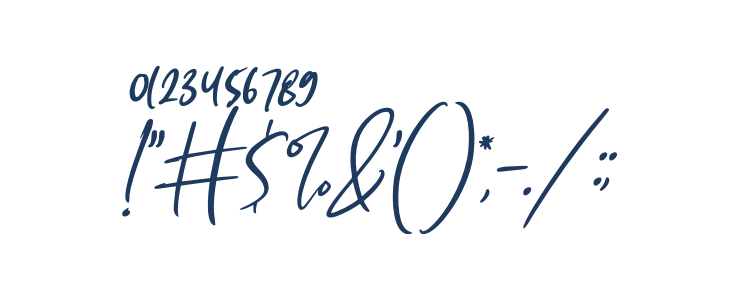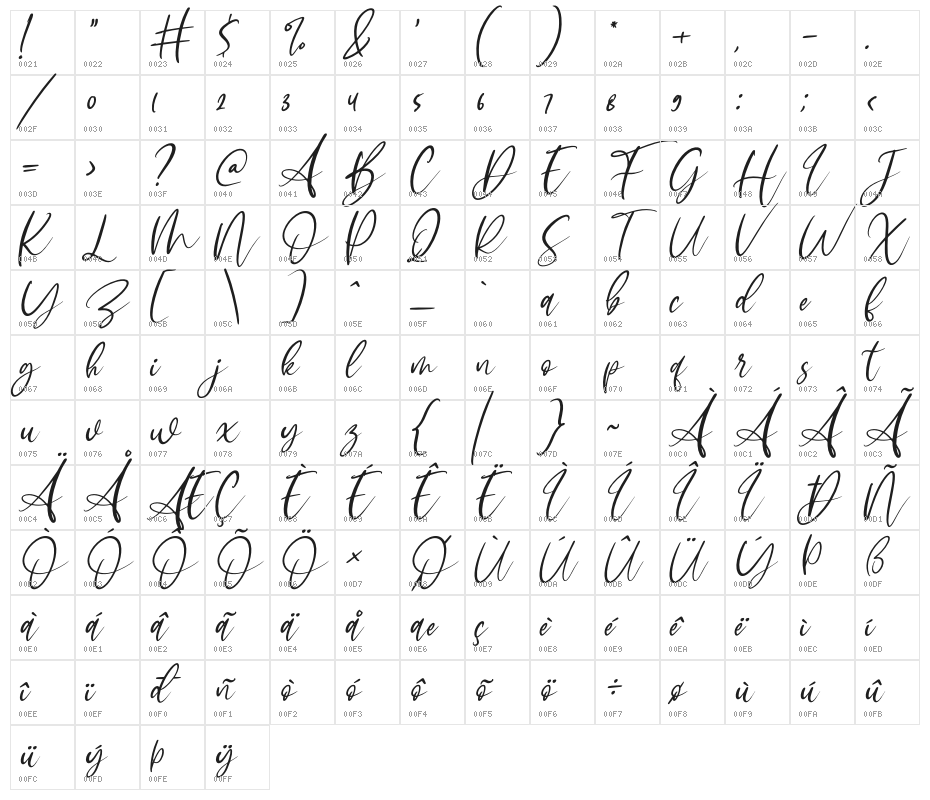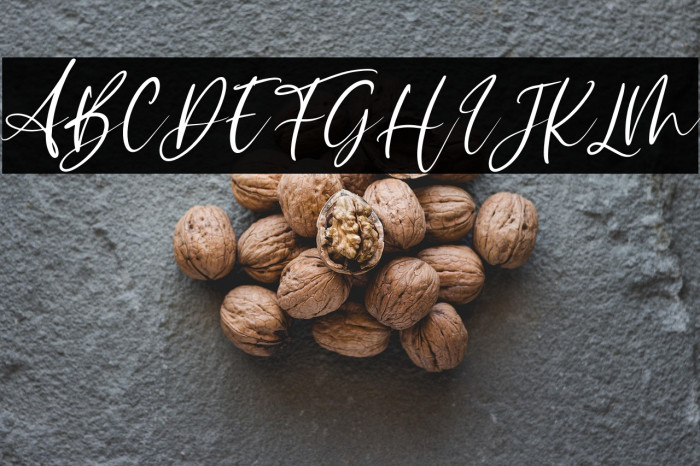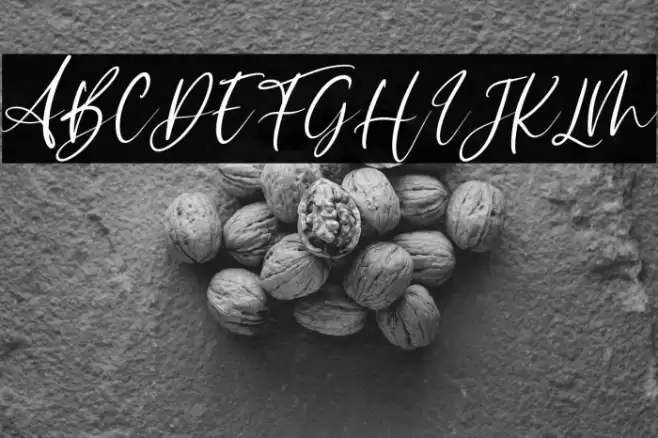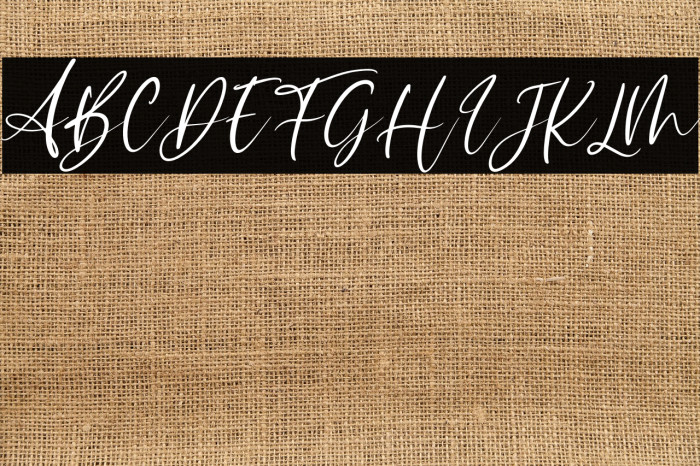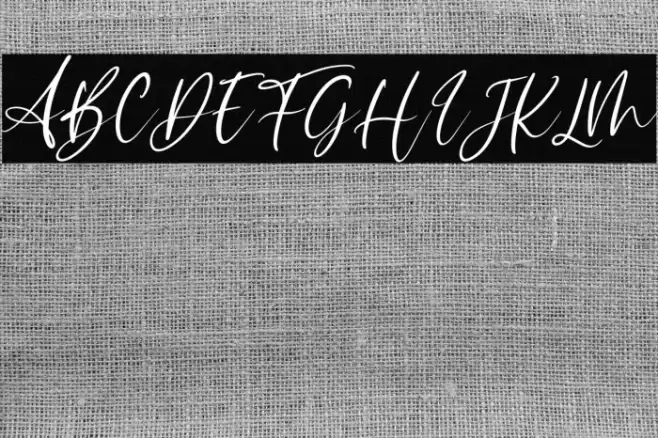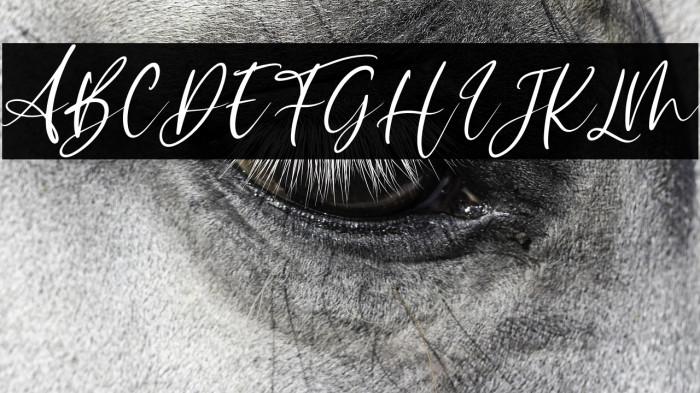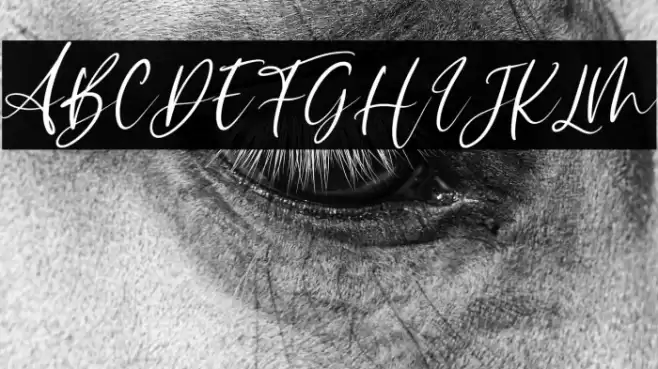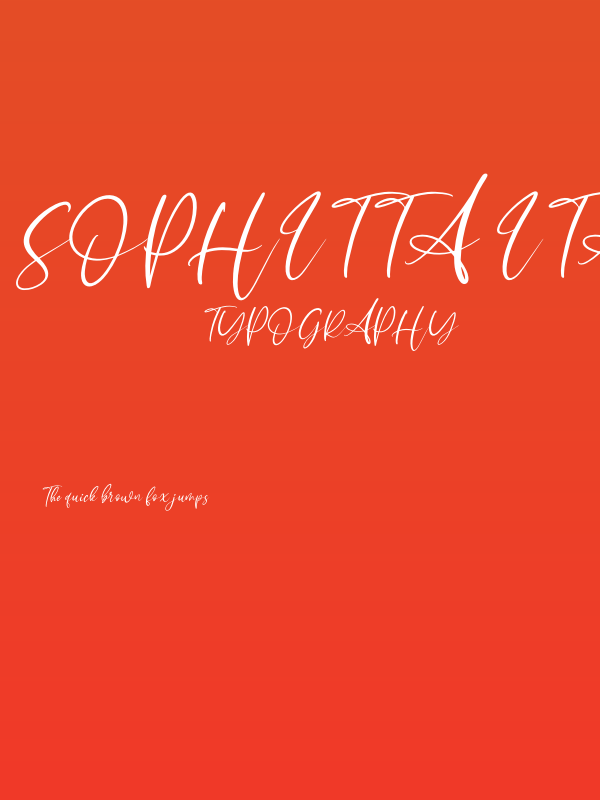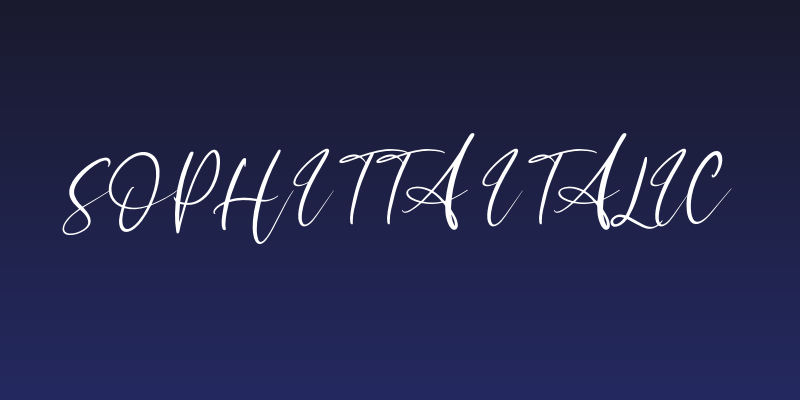
Sophitta Italic Font
Sophitta Italic Description
This font exudes a graceful and fluid style, characterized by its elegant, flowing script that mimics the natural movement of handwriting. The letters are connected, creating a seamless and harmonious look. The uppercase letters are tall and slender, while the lowercase letters maintain a consistent flow with gentle curves and loops. The numbers and special characters follow the same cursive style, adding to the overall cohesiveness. This font is perfect for projects that require a touch of sophistication and elegance, such as invitations, greeting cards, and branding materials.
| Proposed Projects | Ideal for wedding invitations, elegant branding, greeting cards, and personal stationery. |